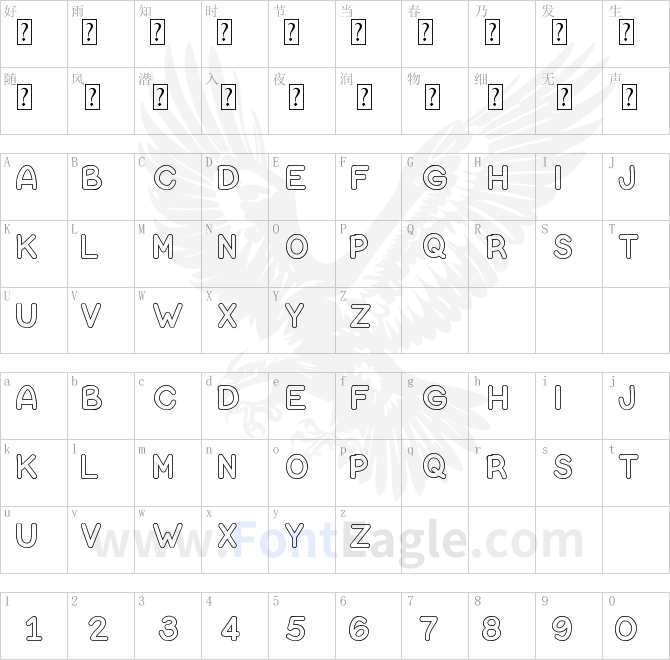
Bubble-Letters is a great font, widely used in graphic design, single-page menu design, poster design and other fields, and is deeply loved by designers.Bubble-Letters download.